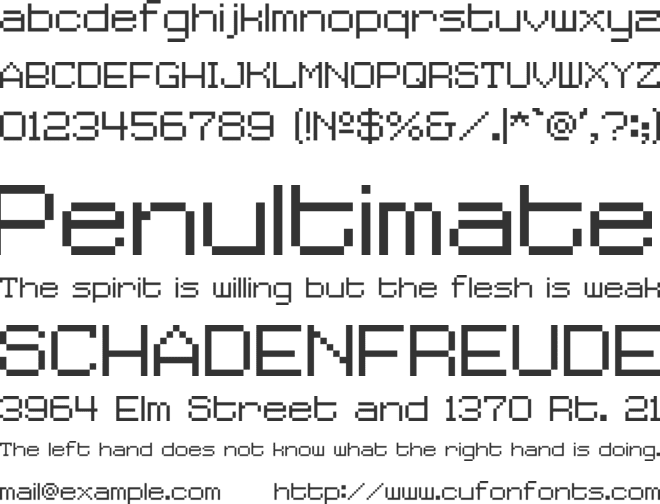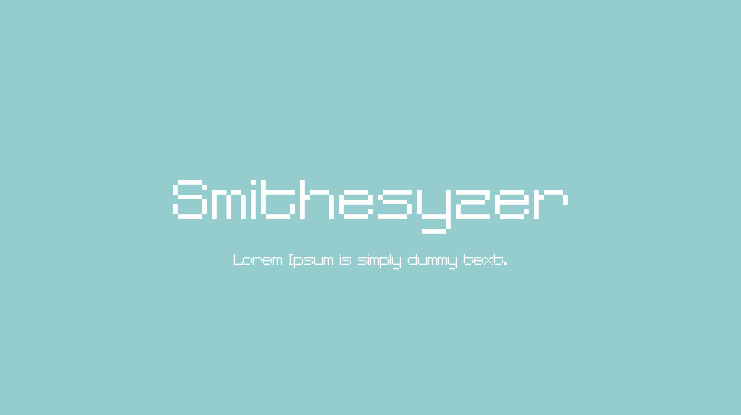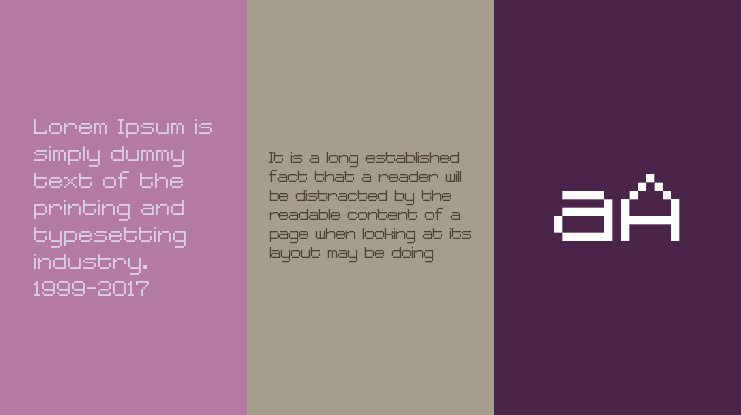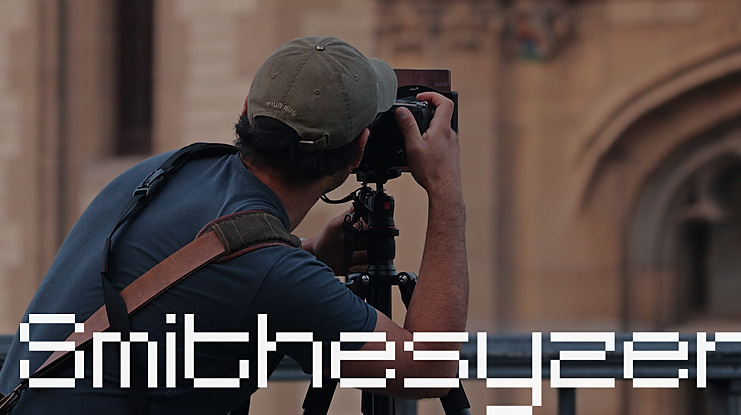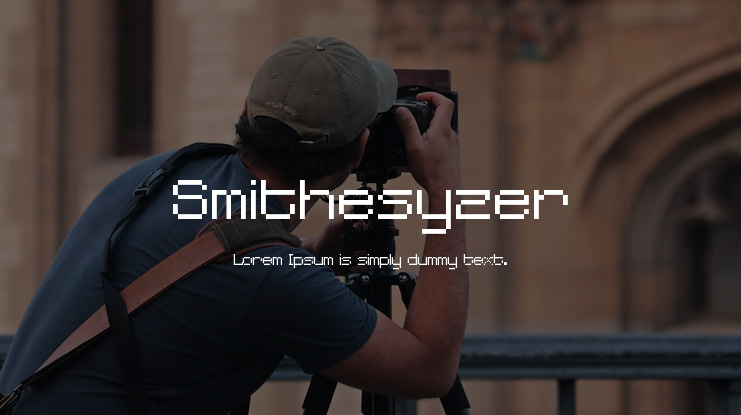
Smithesyzer Font
My own proportional pixel font I made it using Bit Font Maker 2.
Best at 16 pixels. If you're using this font in any of Adobe apps, please turn off the anti-aliasing setting.